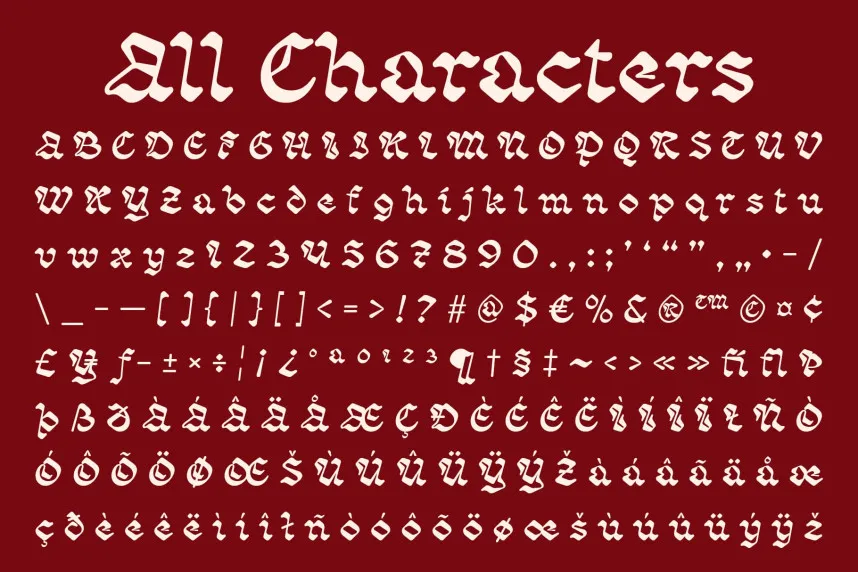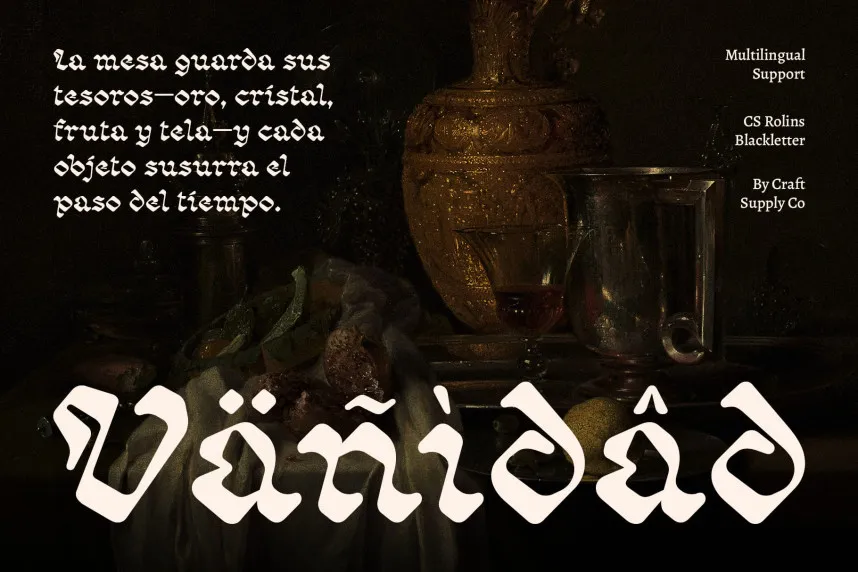
CS Rolins Font is a creative and modern typeface that brings a smooth and elegant style to any design. It has a unique charm that makes it stand out while still keeping your text readable and attractive.
The font is perfect for designers who want to add a touch of personality and style to their work. One of the strengths of this font is its flexibility.
It works beautifully in both digital and print projects, whether you are designing posters, invitations, social media graphics, or branding materials. Its modern curves and clean lines make it suitable for both professional and casual projects.
The font has a stylish flow that gives a fresh and elegant look to your content. Each letter is carefully designed to create harmony, making your text feel balanced and smooth.
CS Rolins Font Family
Another great feature is its readability. While it looks stylish and decorative, it still maintains clarity, which is important for both titles and smaller text. This makes it a reliable choice for many different design needs.